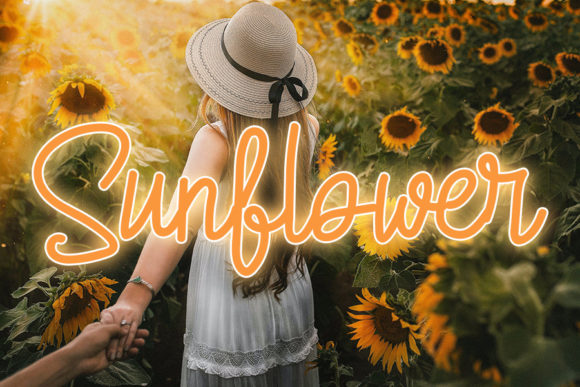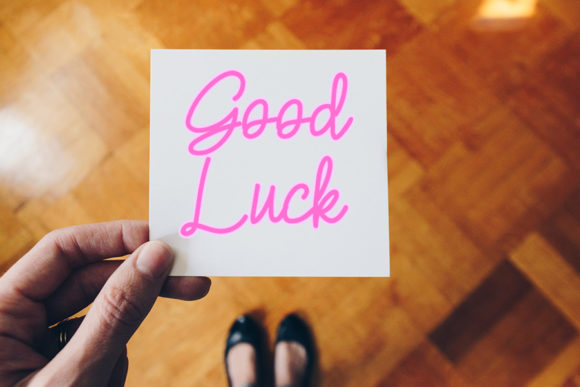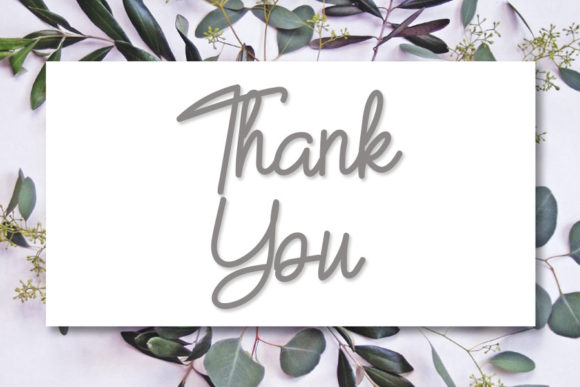
About Vanessa Font
Vanessa is a simple script font with a relaxed theme, featuring a lovely style. No matter the topic, this font will be an incredibly asset to your fonts’ library, as it has the potential to elevate any creation.